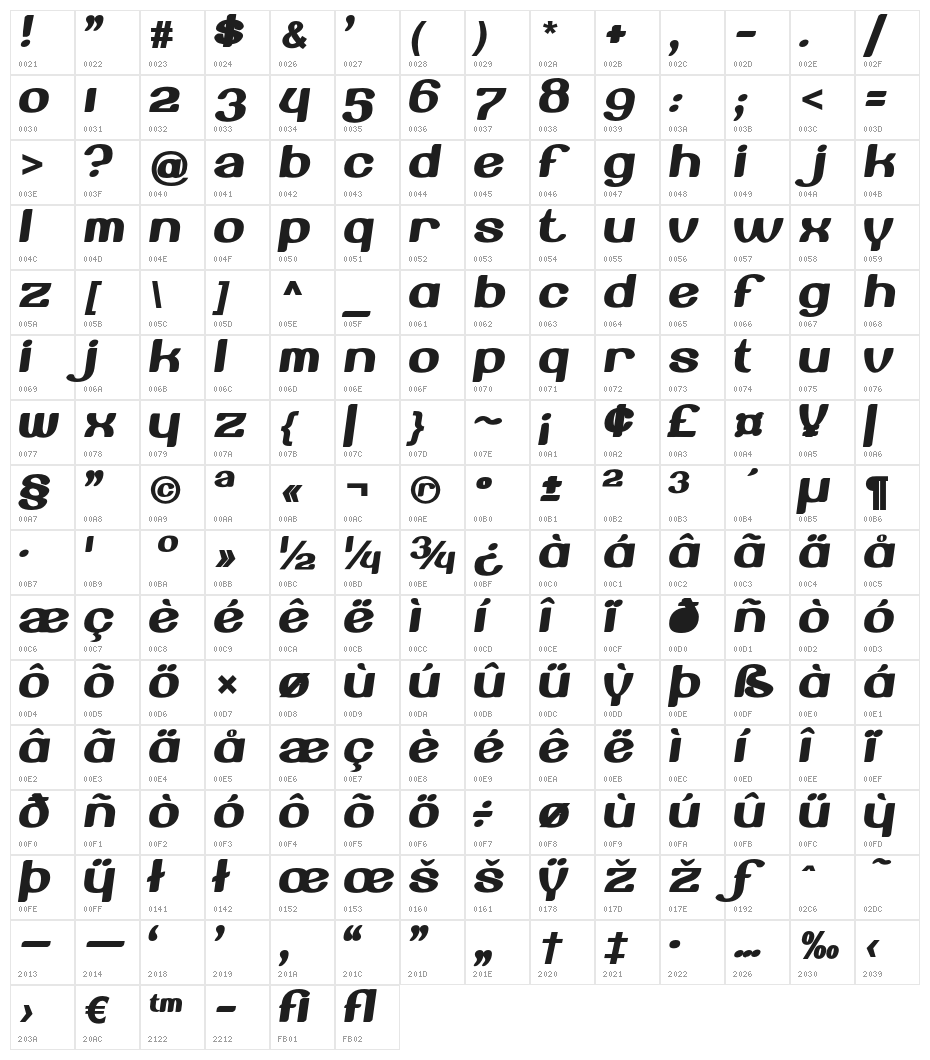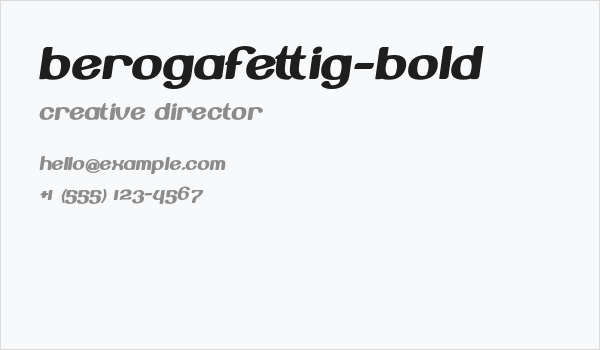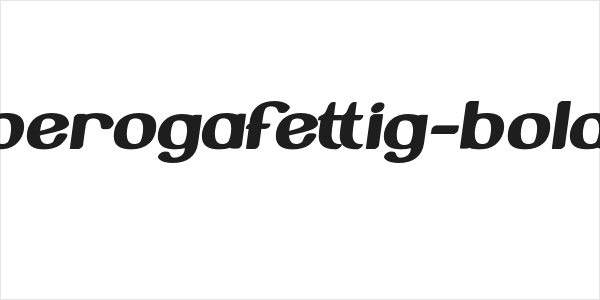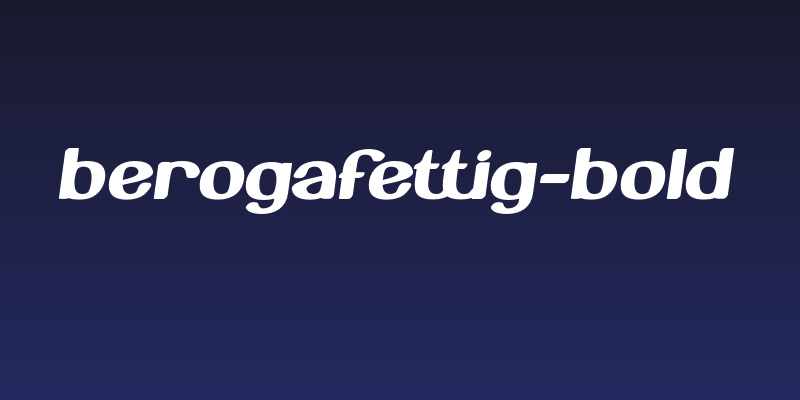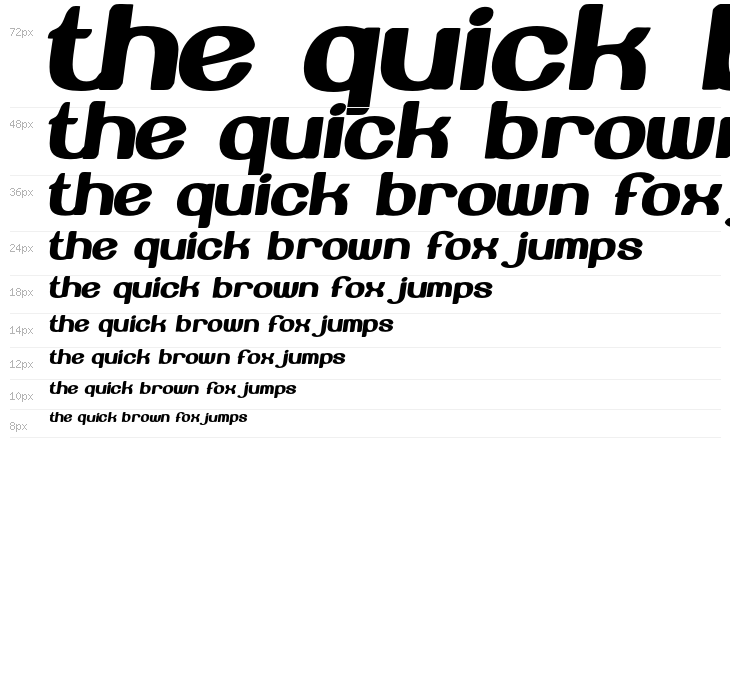
BerogaFettig-Bold Font
BerogaFettig-Bold Description
This font features a bold and dynamic style with a slight slant, giving it a sense of motion and energy. The characters are rounded and smooth, with consistent stroke thickness that adds to its bold appearance. The lowercase letters have a playful, casual feel, while the uppercase letters maintain a strong presence. The numbers are clear and easy to read, matching the overall boldness of the font. Special characters are well-integrated, maintaining the same rounded and smooth aesthetic. This font is versatile and can be used in various design contexts where a bold and energetic typeface is needed.
Proposed ProjectsIdeal for branding, advertising, posters, and headlines that require a bold and energetic typeface.